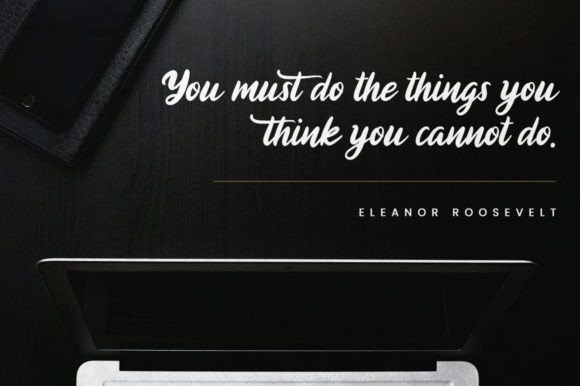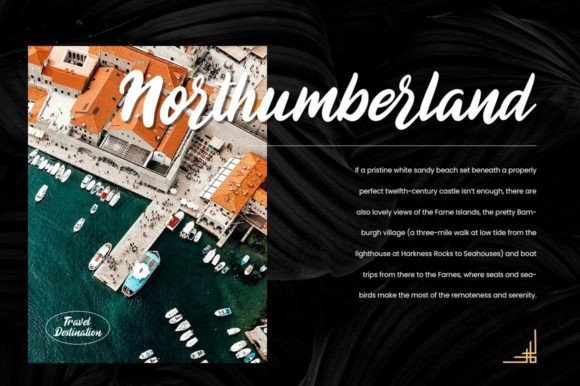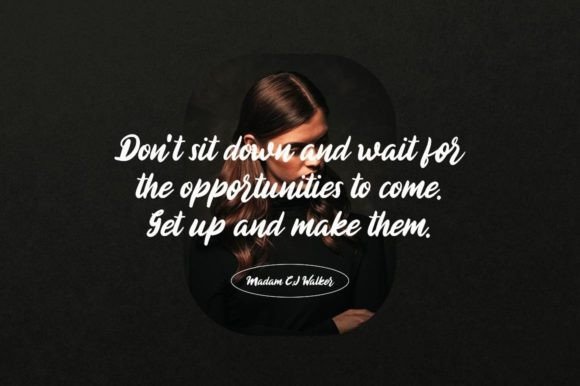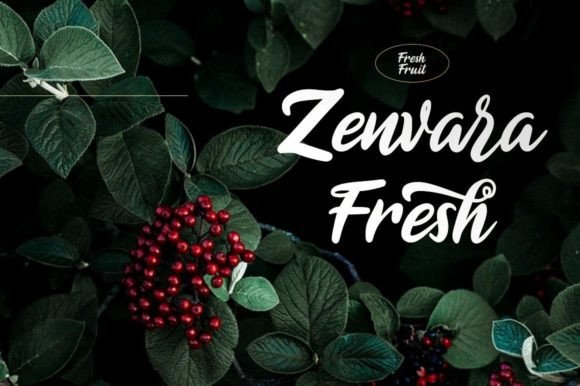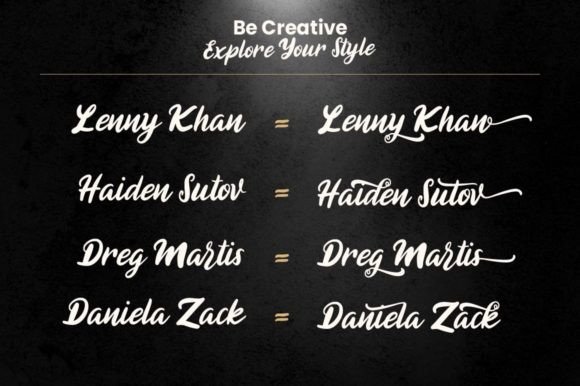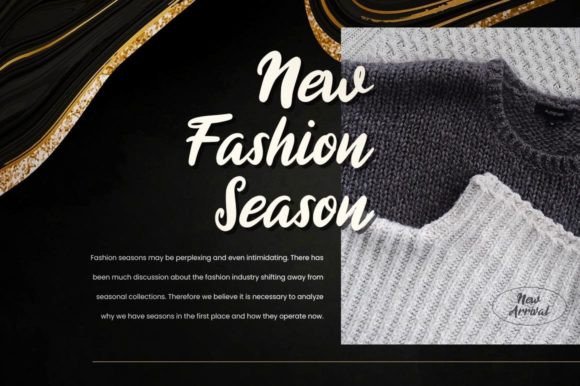
Introduction to Himagine Font
You know that moment when you’re brainstorming ideas for your next creative project and you stumble upon the perfect font to bring it all together? For designers, that ‘aha’ moment is priceless. It’s the difference between a decent design and a truly stunning one. For me, that moment came when I discovered the Himagine Font – a lovely handwritten font featuring charming, playful characters that seem to dance along the baseline.
What sets Himagine Font apart from other design resources is its high quality and versatility. With its transparent background, it’s the perfect addition to any creative project, whether you’re designing a logo, a social media graphic, or a wedding invitation. And the best part? It’s available for free download, making it an invaluable resource for designers of all levels.
Whether you’re a seasoned pro or just starting out, the Himagine Font is a valuable addition to your design arsenal. Its PUA encoded feature allows for easy access to all glyphs and swashes, giving you endless possibilities for creative expression. So why not give it a try and see how it can elevate your next design project?
Key Features of Himagine Font
- High-quality design resource perfect for creative projects, offering a unique and creative touch.
- Features a transparent background, allowing for seamless integration with different design elements and backgrounds.
- Unique characteristics include a minimalist aesthetic and a versatile design that can be used for various creative projects.
- Perfect for designers looking for a high-quality, free design resource to enhance their creative project.
Honest Review: Himagine Font
As a designer, I’m always on the lookout for high-quality design resources that can elevate my creative projects. Recently, I had the chance to work with the Himagine Font, and I’m excited to share my honest review.
- ✨ Beautiful and unique font styles that add a touch of elegance to any design project
- ✨ High-quality vector files that can be scaled up or down without losing any clarity
- ✨ Transparent background option, making it easy to combine with other design elements
- ⚠️ Limited font styles and sizes available, which may not be suitable for larger design projects
Overall, I’m impressed with the Himagine Font, and I would definitely recommend it for small to medium-sized design projects. While it has its limitations, the quality and uniqueness of the font make it a valuable design resource for any creative project.
Himagine Font
The Himagine Font is a high-quality design resource available for free download. This versatile font is perfect for various creative projects, from branding and marketing materials to digital art and illustrations.
Tips for Getting the Most Out of Himagine Font
To get the most out of the Himagine Font, try experimenting with different font sizes, colors, and styles. You can also use it in combination with other design elements to create visually appealing and engaging designs.
The Himagine Font is suitable for a wide range of creative projects, including:
- Branding and marketing materials
- Digital art and illustrations
- Websites and web applications
What is the recommended size for using the Himagine Font in a design project?
The recommended size for using the Himagine Font in a design project will depend on the specific requirements of your project. However, as a general rule, it’s best to use the Himagine Font at a minimum size of 12 points for optimal readability. This will ensure that the font remains legible and visually appealing, even in high-resolution designs.